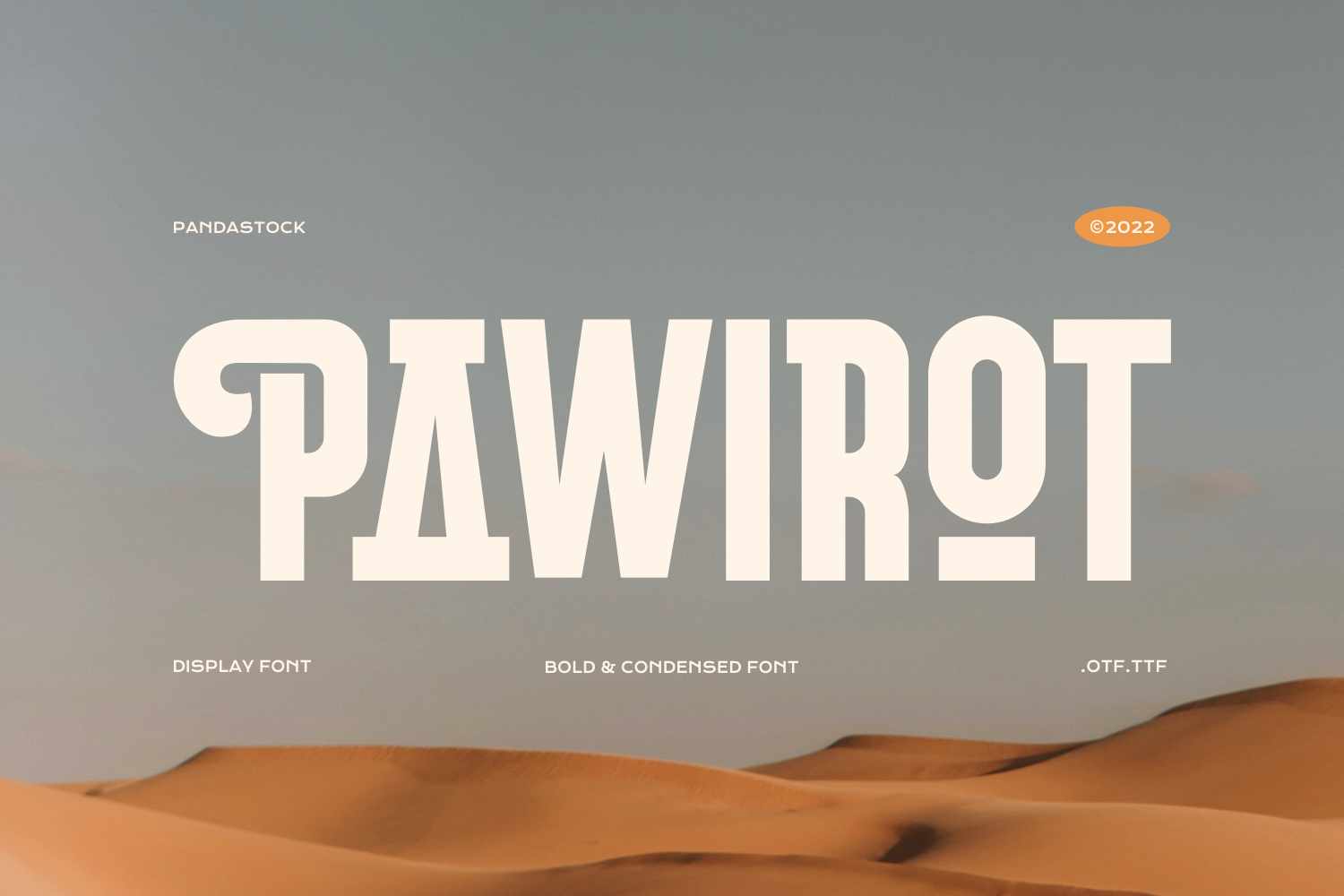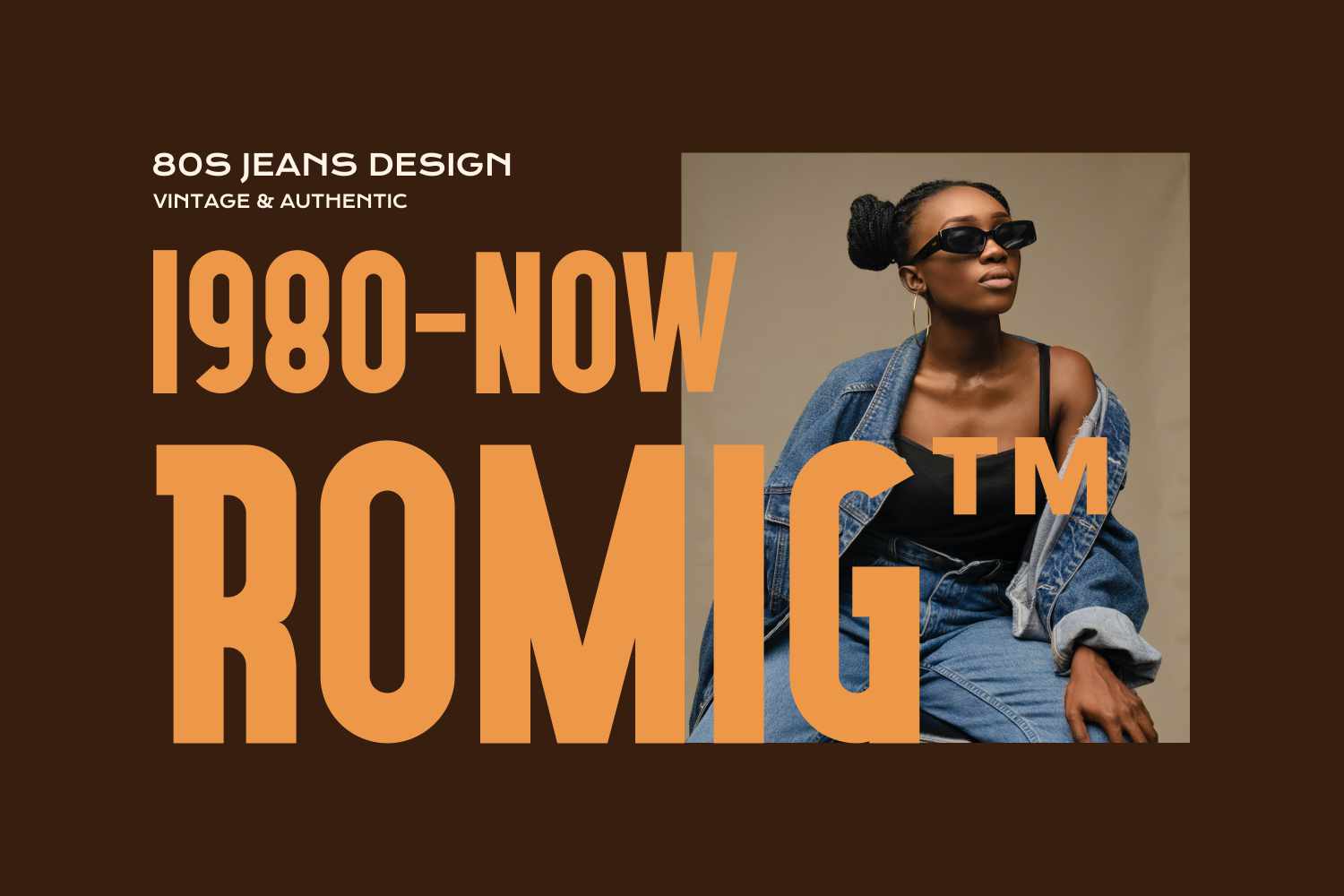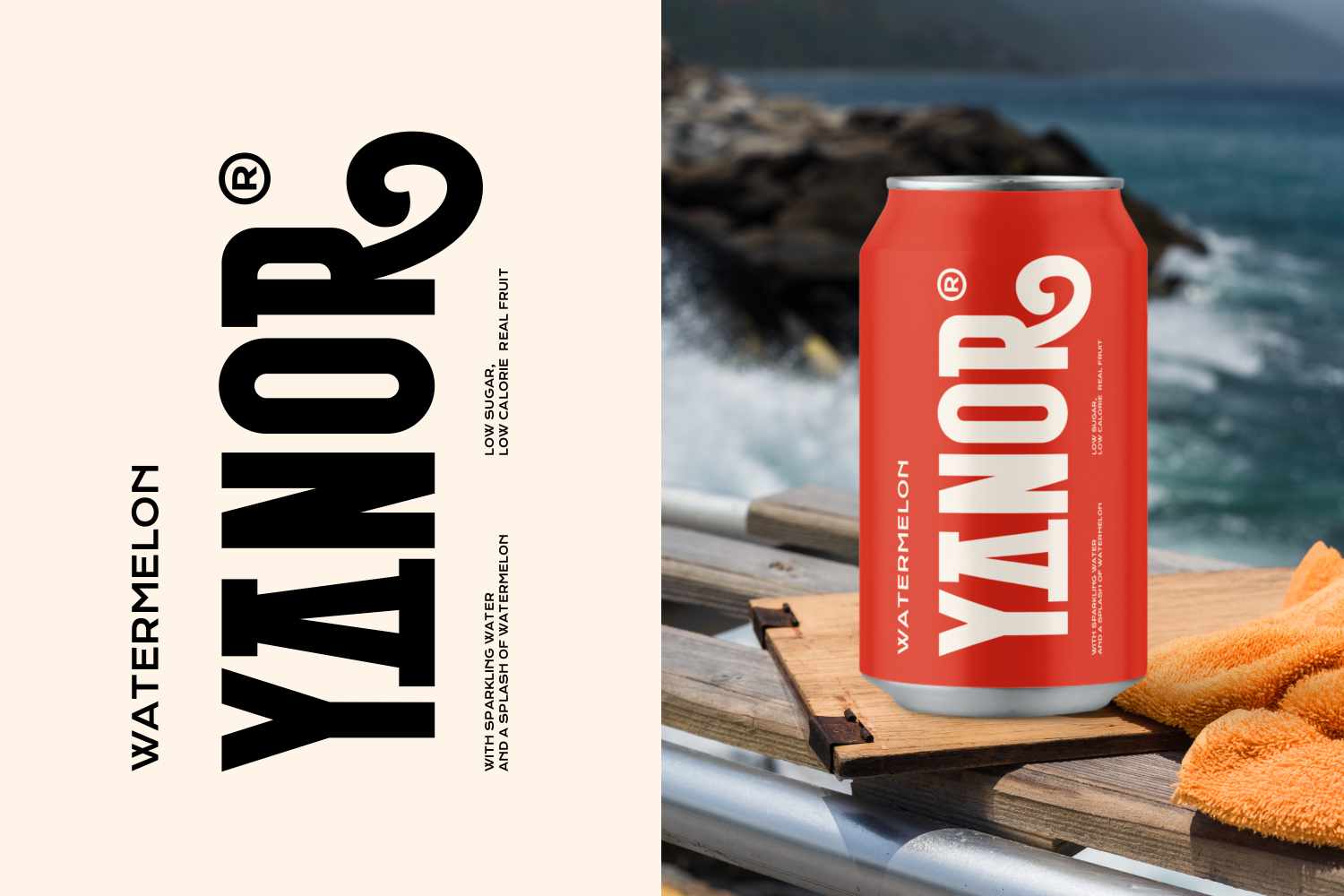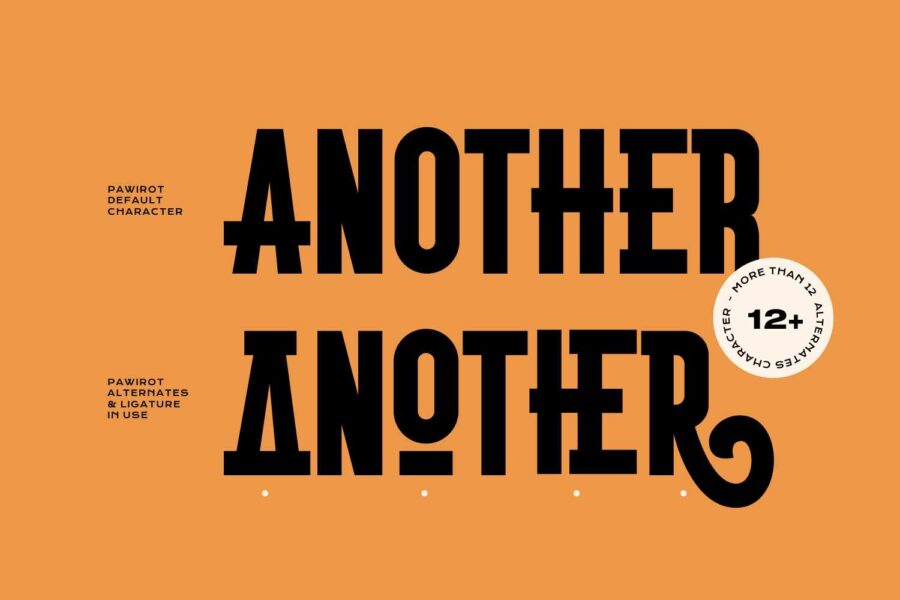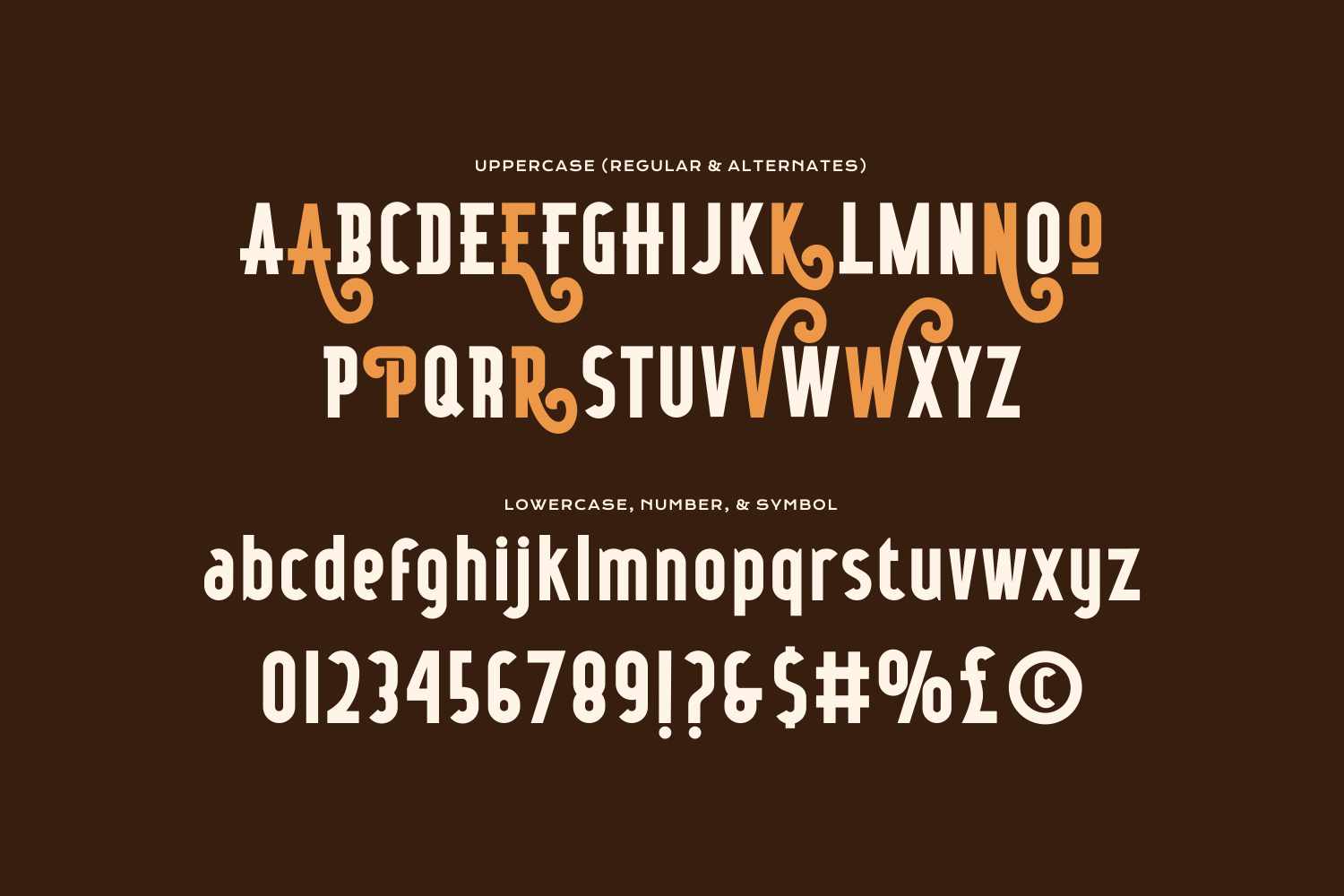
Pawirot is a bold and condensed display font with a unique blend of retro charm and modern strength. Its tall structure, thick strokes, and creative alternates make it stand out for impactful headlines, eye-catching posters, and expressive branding. With a playful twist on some characters, Pawirot brings both personality and power into your design projects.
Perfect for apparel design, beverage labels, music covers, or retro-inspired branding, Pawirot adds a statement wherever it’s used. The combination of boldness and versatility ensures this font fits seamlessly in both digital and print formats, making your work more distinctive and memorable.
Pawirot